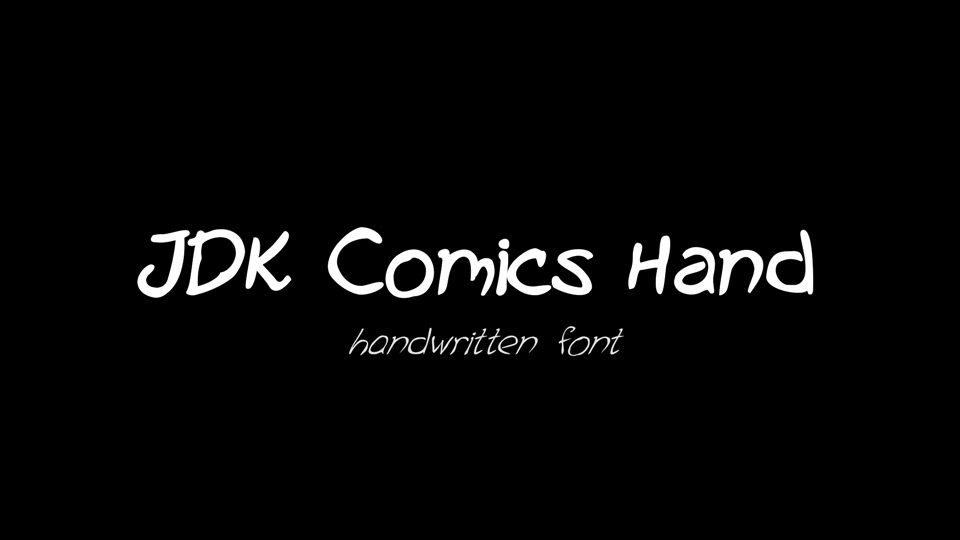
Download JDK Comic Hand font, a handwritten typeface, comic, slightly shaky. It is a complete font that includes uppercase and lowercase letters. It has 4 cuts: regular, italic, bold and bold italic.
Designer: Jakub D. Kočí